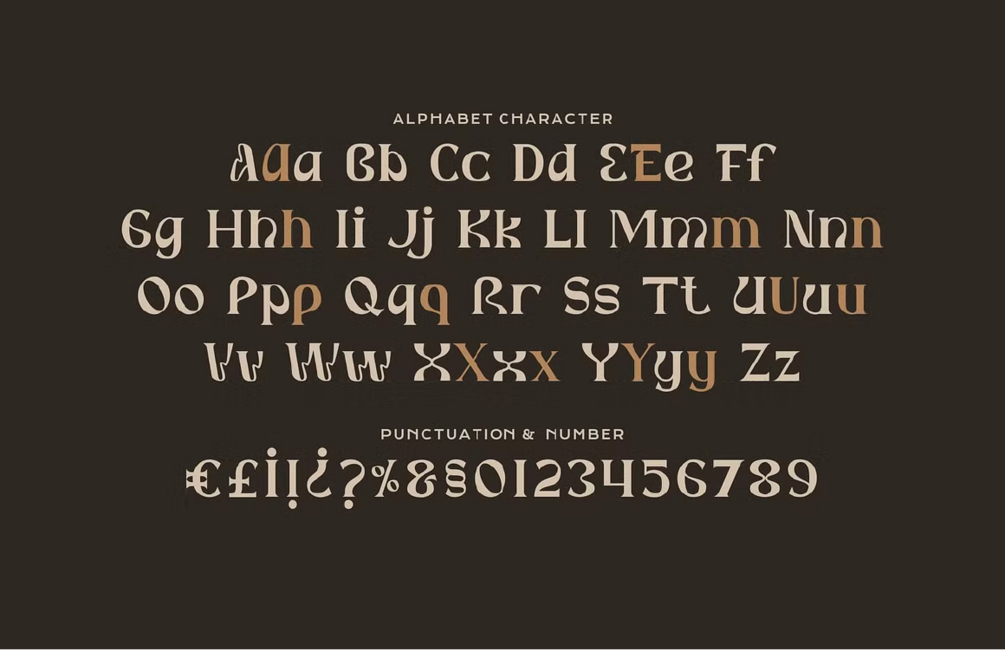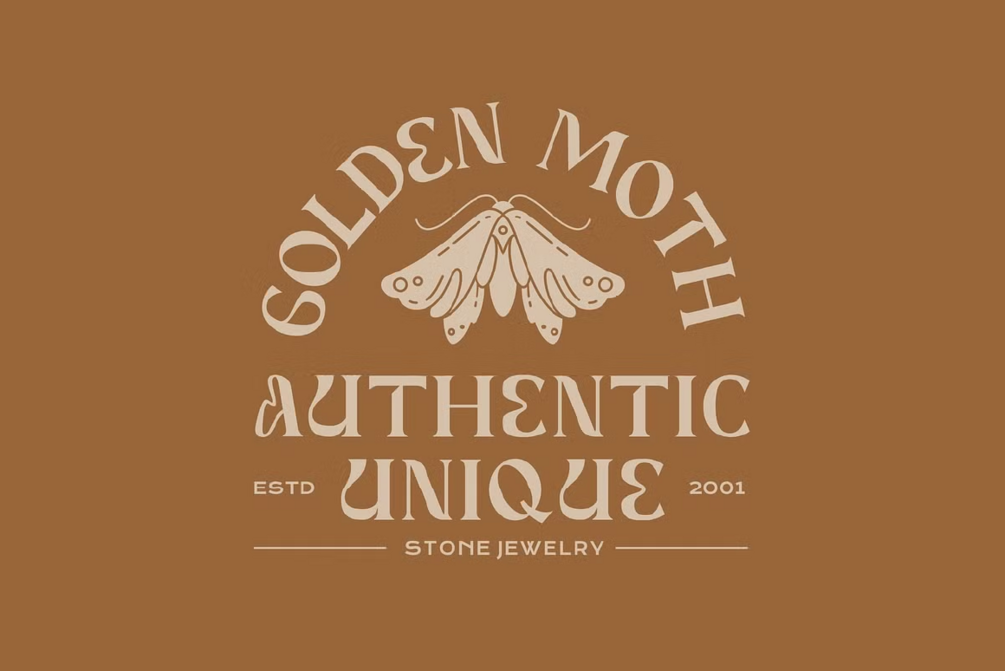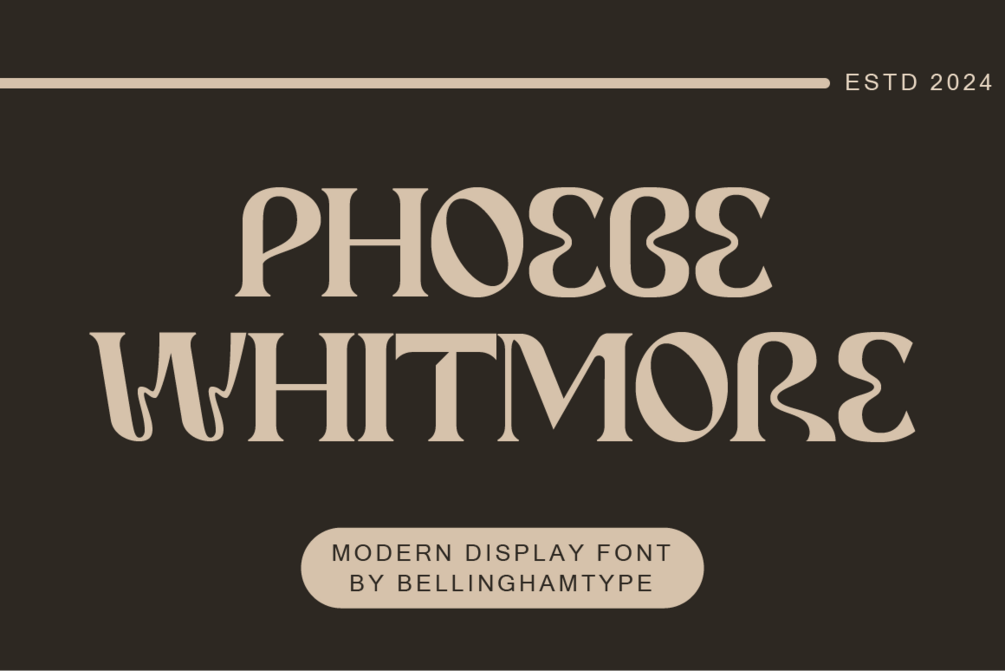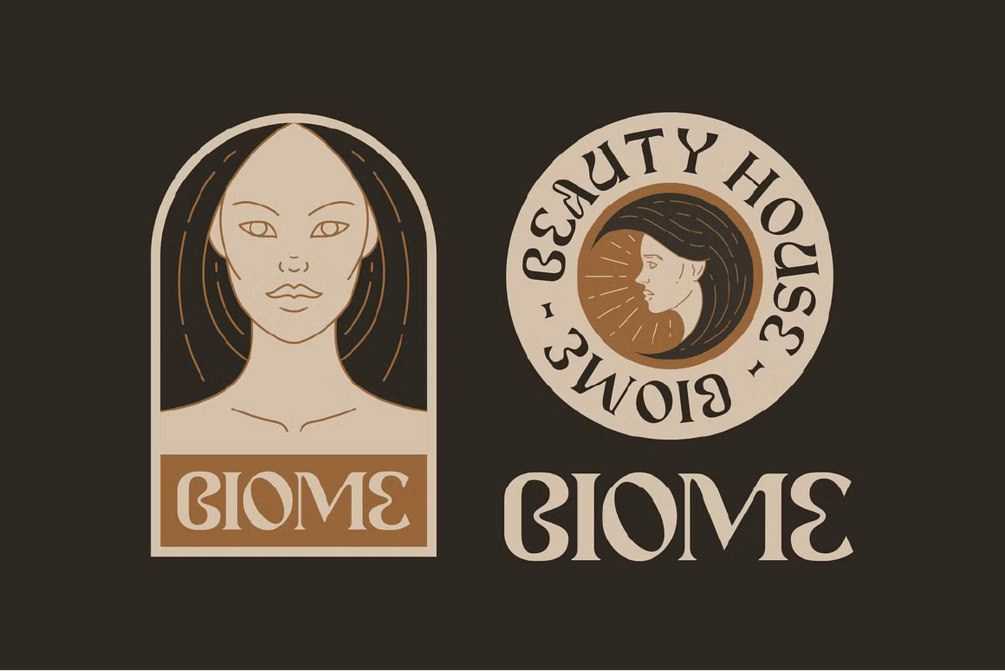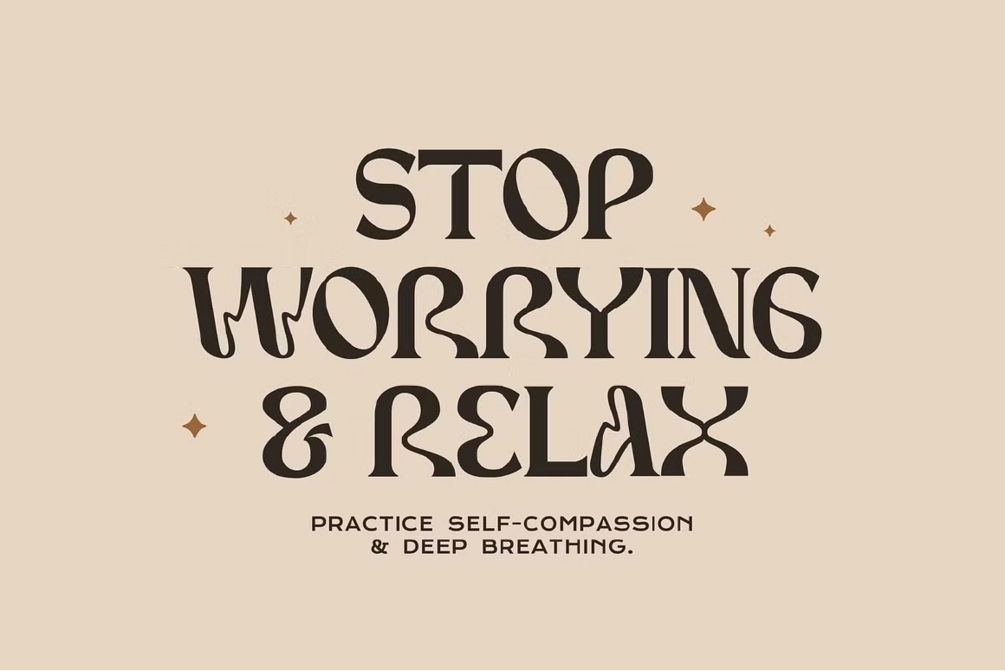
Phoebe Whitmore
Phoebe Whitmore is Display font. This font would be perfect for photography, watermarks, social media posts, advertisements, logos & branding, invitations, product design, labels, stationery, product packaging, special events, and other projects.